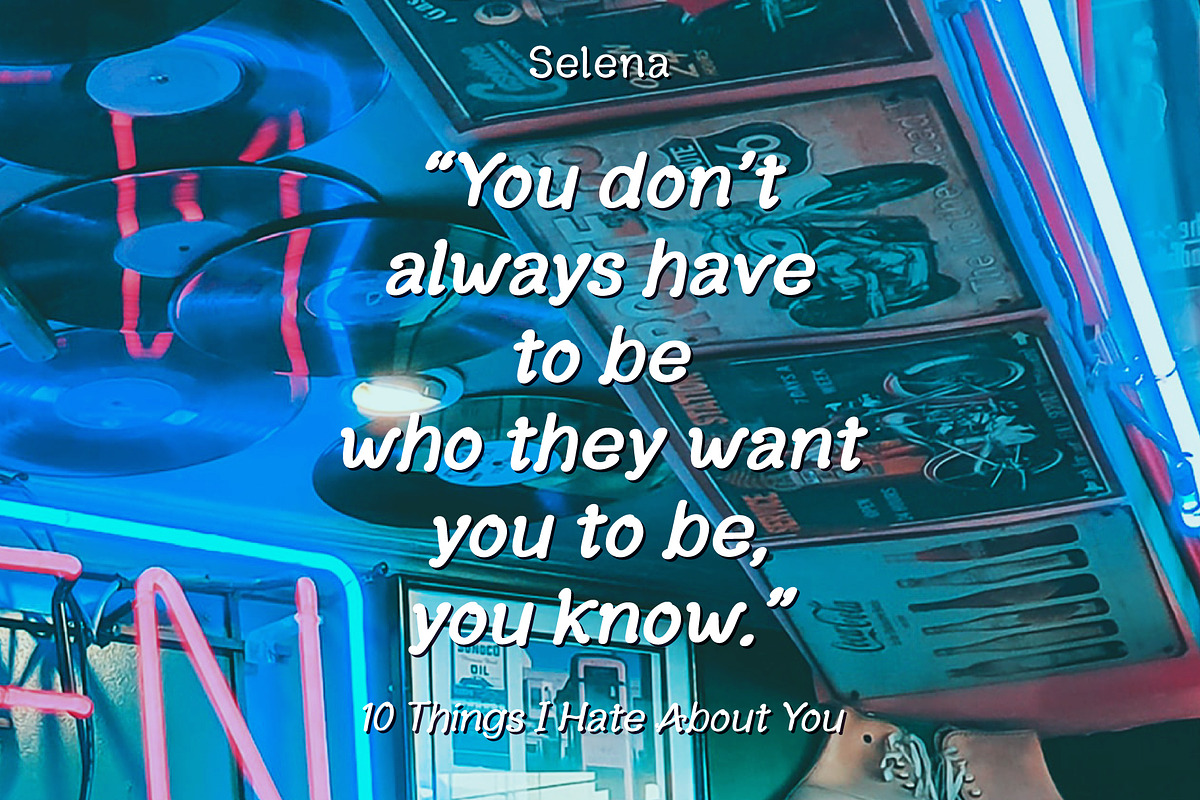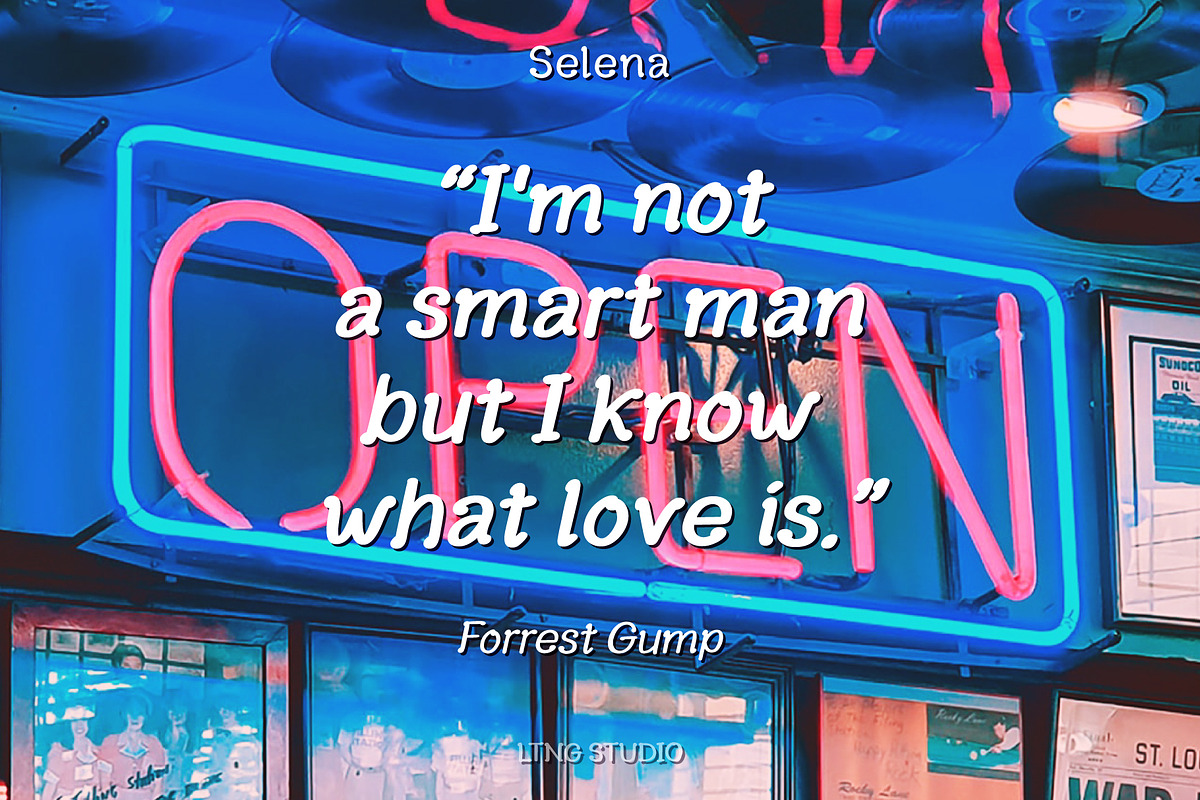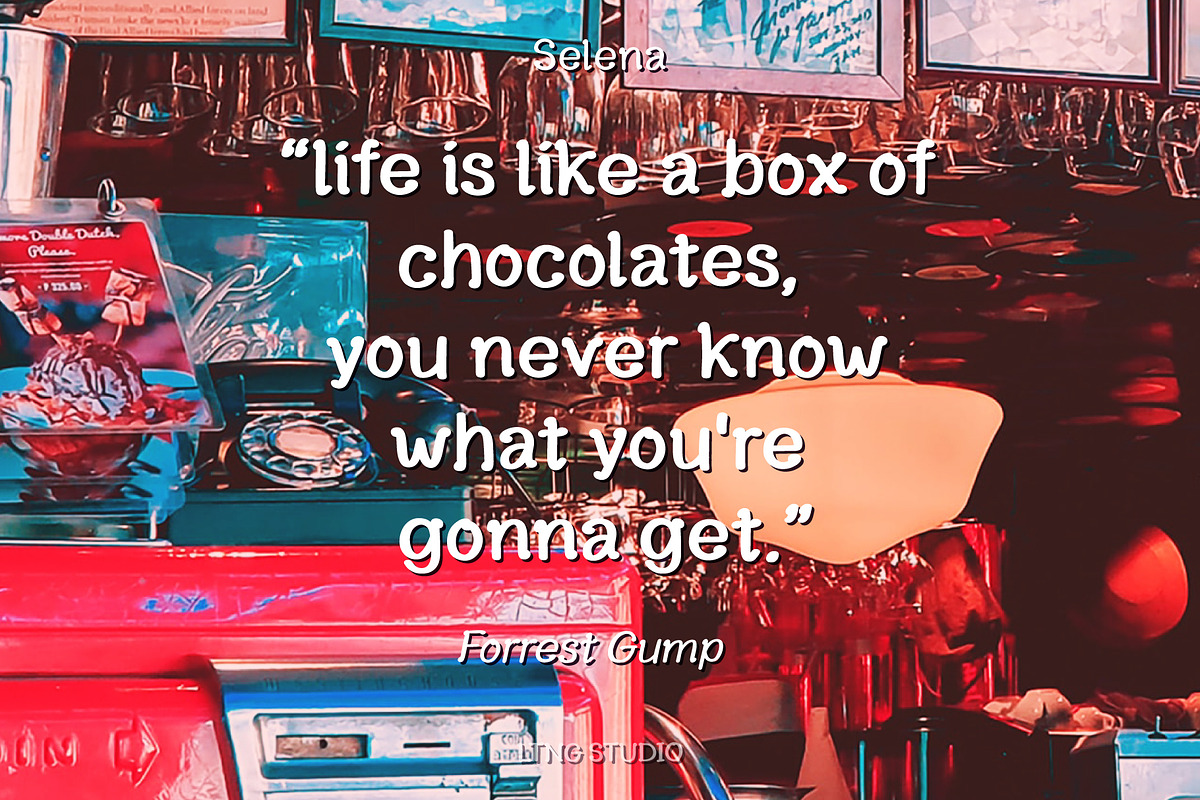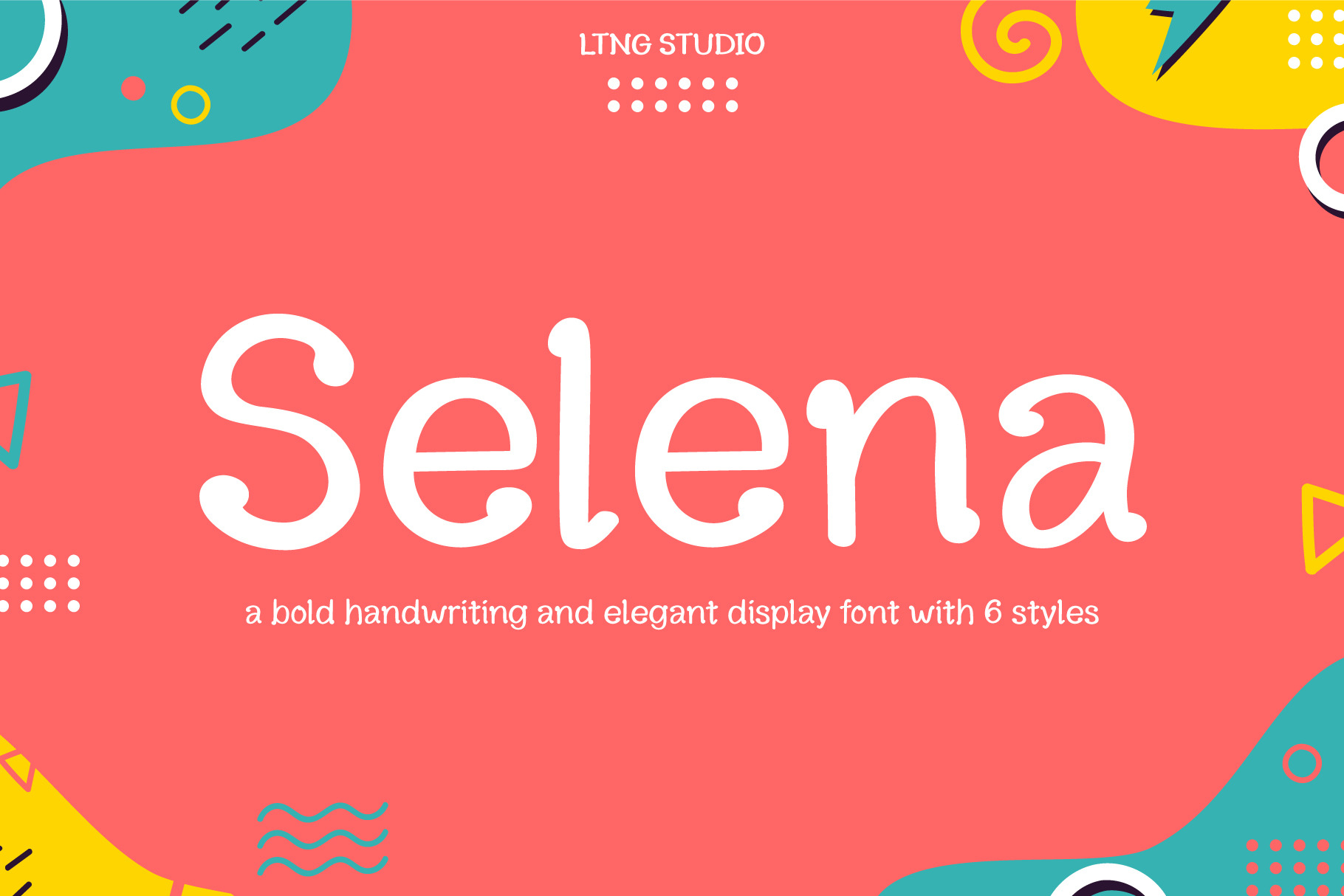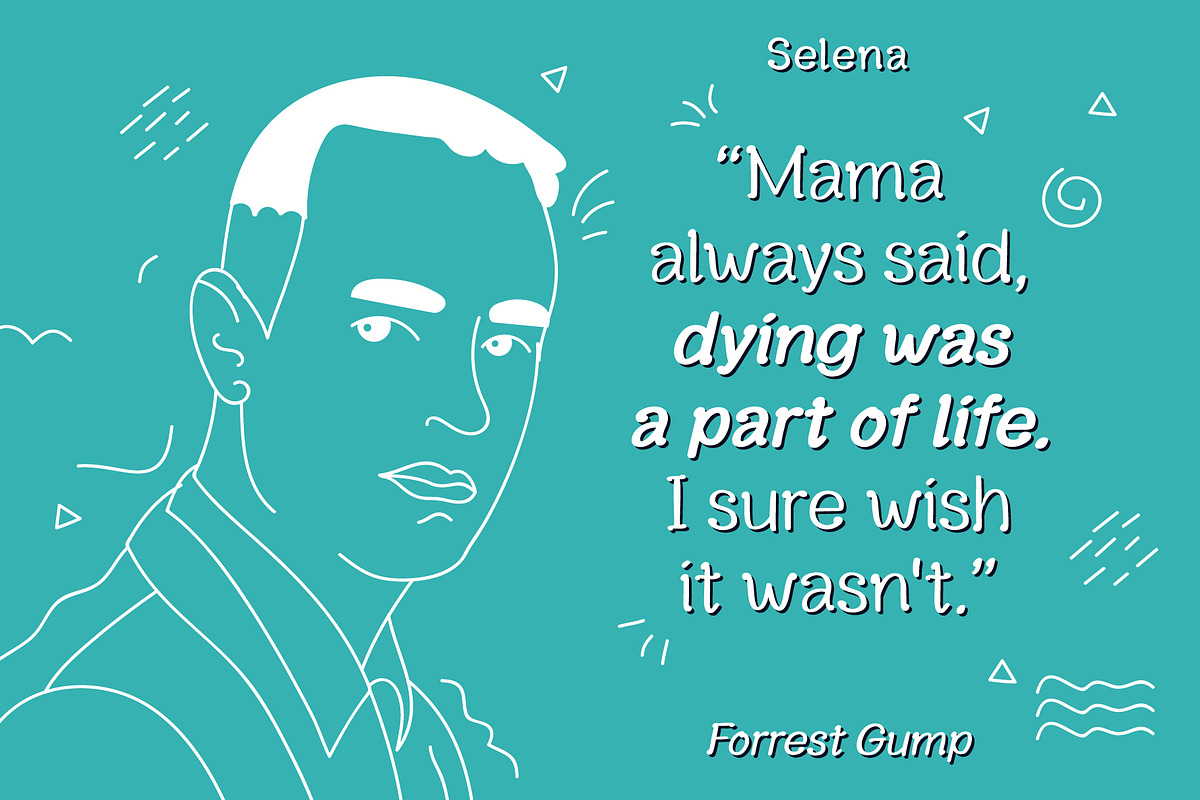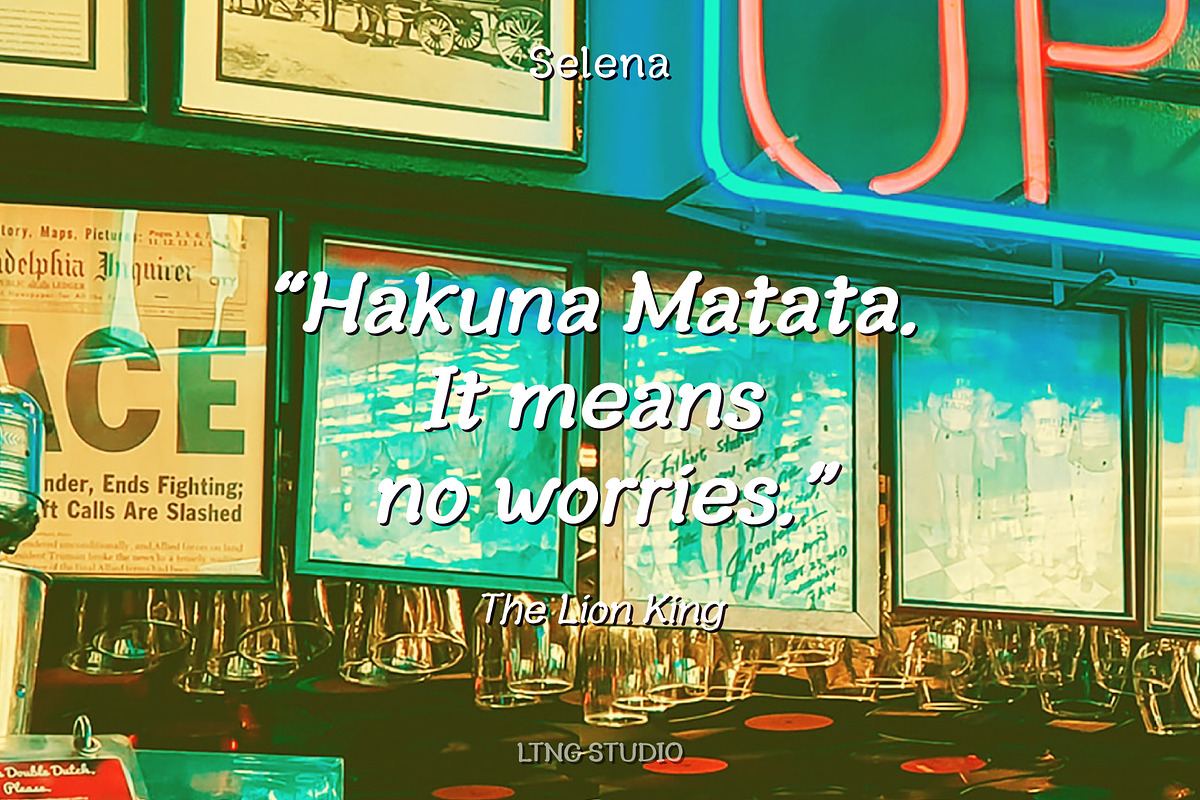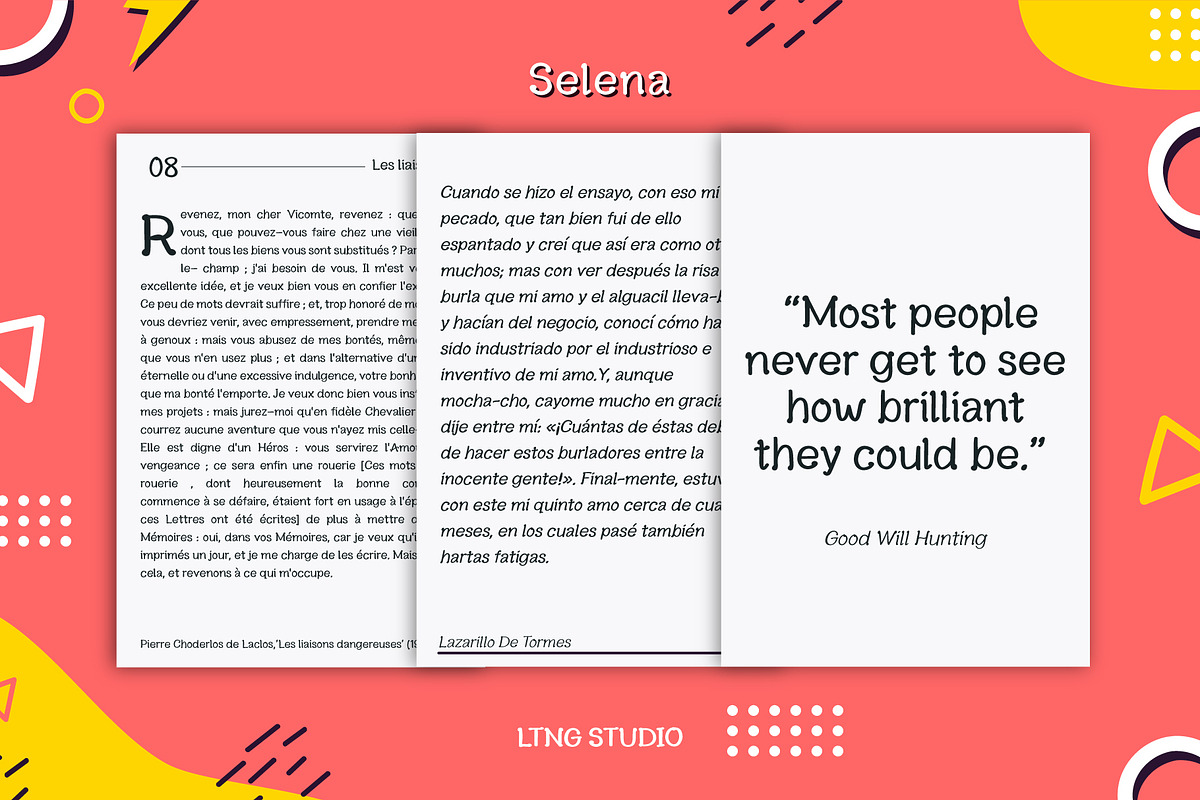
Selena Handwritten & Display Font
"Introducing Selena, a one-of-a-kind handwritten and display font. Its unique shape, featuring bold lines and rounded curves, makes it an ideal choice for branding, logo design, lettering, logotypes, clothing, magazines, packaging, posters, shopping bags, t-shirts, book covers, greeting cards, photography, children's books, special events, and other design projects. The boldness of Selena conveys confidence and strength, adding a playful yet sophisticated touch to your work. Inspired by a love for movies (especially from the 90s), hand-lettering, doodling, and handwritten notes, Selena is a blend of handwriting, display, and serif styles.